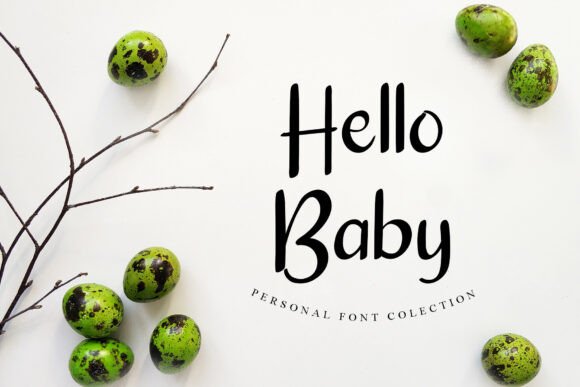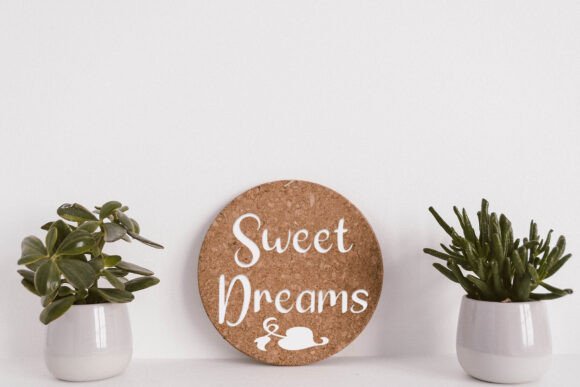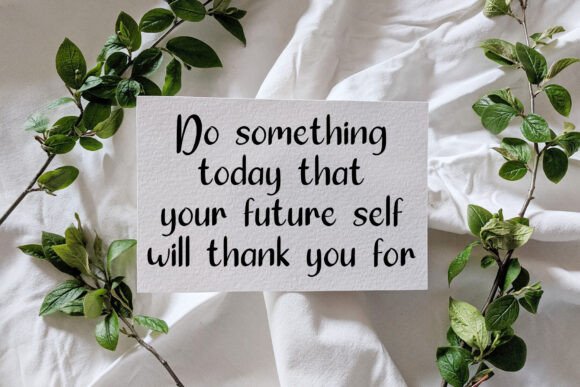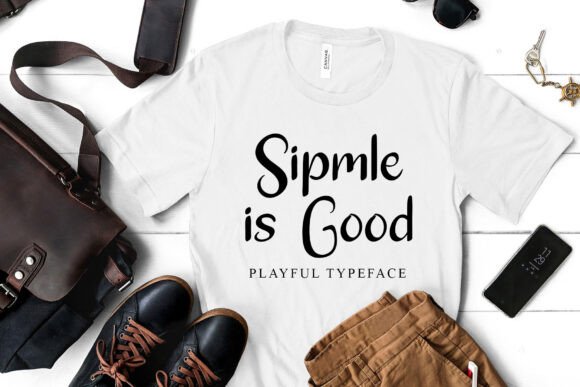
Introduction to Shocking Font
Have you ever found yourself stuck in a design rut, scrolling through countless fonts, searching for that perfect match for your creative project? I know I have. It was on one such late-night design session that I stumbled upon the ‘Shocking Font’, a sweet and friendly handwritten font that has since become my go-to choice for many of my design projects.
What drew me to this font was its natural and unique style, which not only adds a personal touch to any design but also makes it incredibly versatile. Whether you’re working on a design resource that requires a high-quality, handwritten font or simply want to give your creative project a personal touch, the Shocking Font is an excellent choice.
Key Features of Shocking Font
- Unique characteristics include bold and playful letterforms, ideal for adding a touch of whimsy to your design.
Honest Review: Shocking Font
I recently had the chance to try out the Shocking Font, a design resource that promises to bring a bit of shock value to your creative project. I have to say, I was both impressed and underwhelmed by this font.
What works well: ✨ The Shocking Font has a bold, eye-catching aesthetic that’s sure to grab attention. It’s perfect for making a statement in your design. The font also comes with a transparent background, which makes it easy to use in a variety of different contexts.
What doesn’t: ⚠️ While the font is high quality and free to download, it’s not suitable for all types of design projects. For example, it may not be the best choice for a corporate or professional setting, as it can come across as a bit too flashy. Additionally, the font is only available in a limited range of weights and styles.
Overall, I’d say that the Shocking Font is a solid choice for designers who want to add a bit of shock value to their work. However, it’s not a one-size-fits-all solution, and you’ll need to carefully consider whether it’s right for your specific project.
- Perfect for making a statement in your design
- Limited range of weights and styles